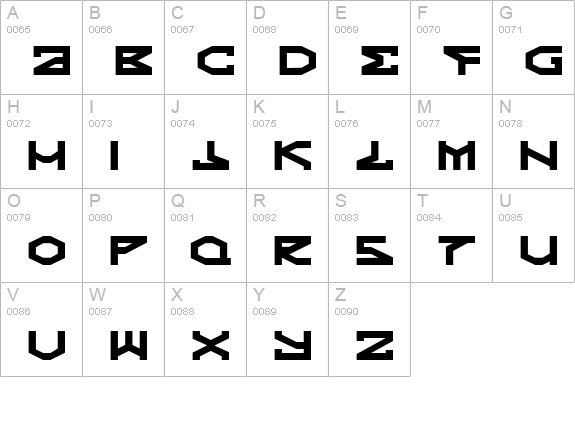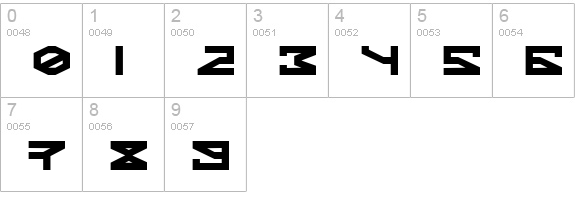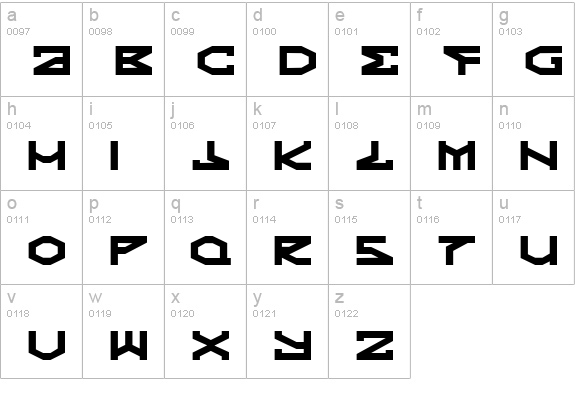
Kryptic Font Details
Kryptic font is a modern and stylish typeface that combines sleek lines with a touch of mystery. Its edgy design and sharp angles give any project a bold and contemporary look. The geometric shapes and unique letterforms of Kryptic font make it perfect for logos, headlines, and branding materials. This versatile font is free to download at FontsMarket.com, making it accessible to designers and creatives looking to add a touch of sophistication to their projects. Whether you're creating a sleek website, designing a striking poster, or crafting a memorable business card, Kryptic font is sure to make a statement. Stand out from the crowd with this eye-catching and dynamic typeface that is as captivating as it is free to use.